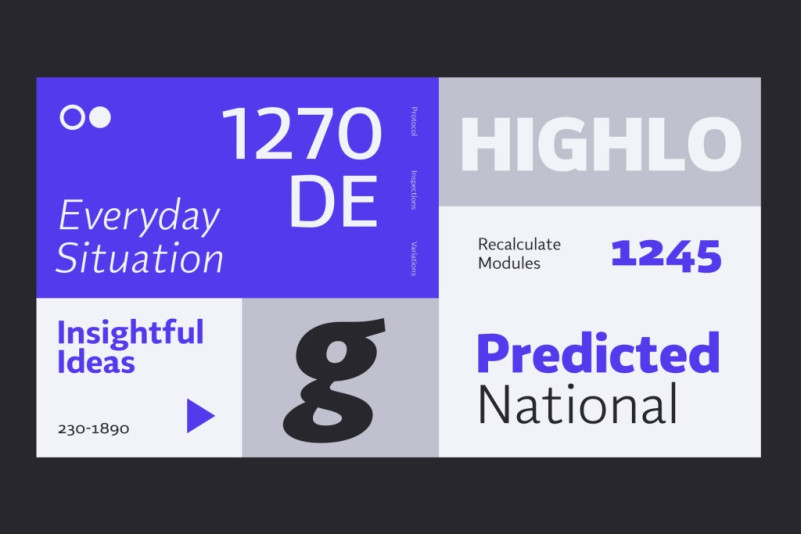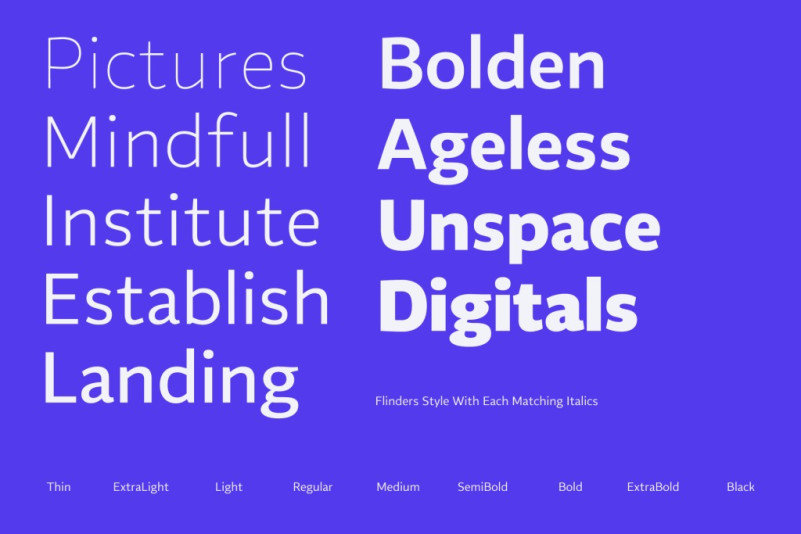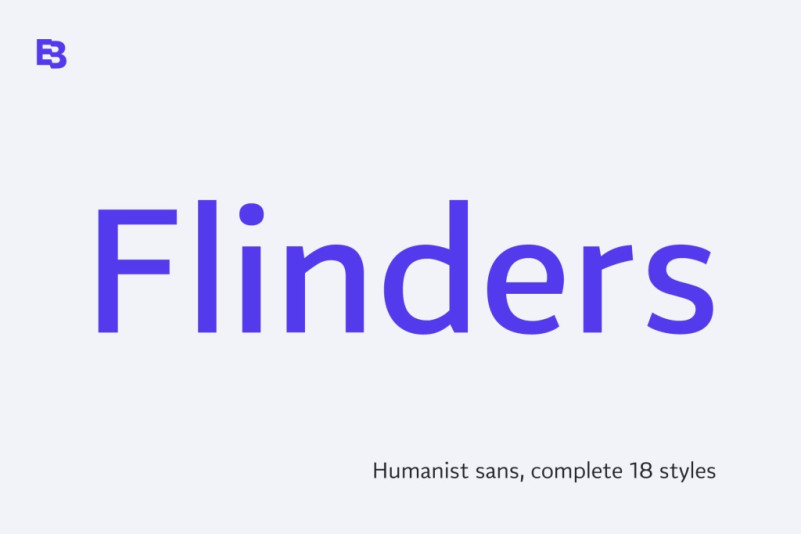
Flinders Font
Flinders Sans Serif Font a sans serif font that is extremely minimal and clean. This font is exceptionally modern and suited to a wide range of designs.